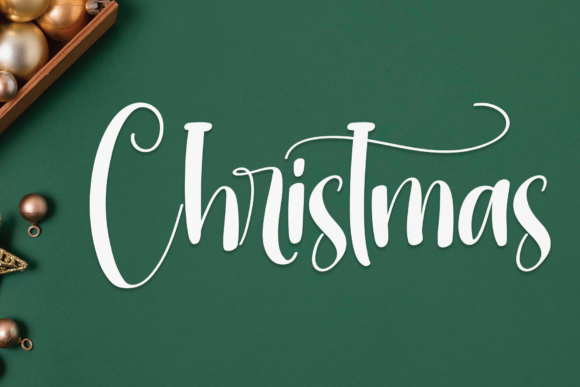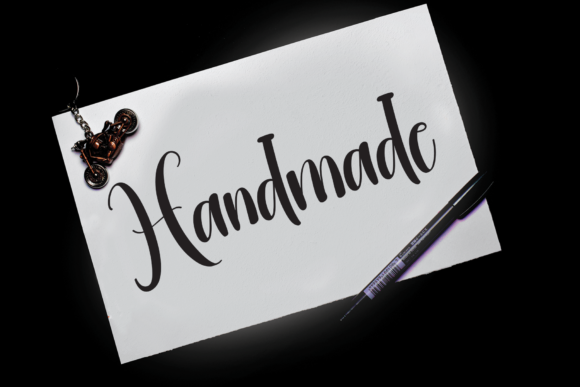
Butter Font
db-ku.com - Script & Handwritten -- Butter is a free-flowing handwritten font, described by a fine vibe, matched to your favorite projects. Use your imagination and exceed all your expectations.